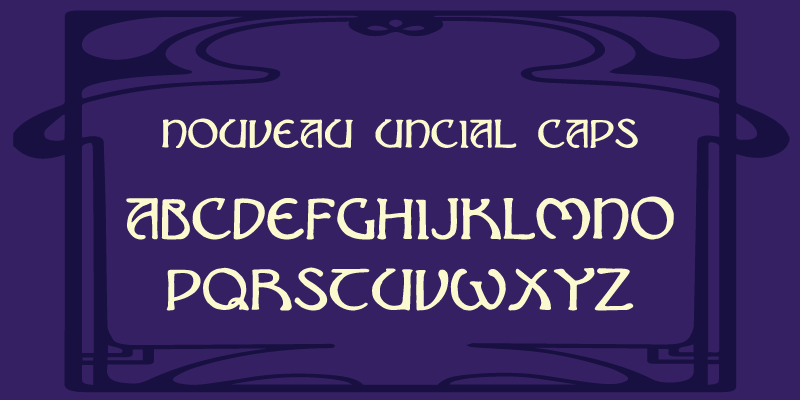
Preview and download Nouveau Uncial Caps Font. Created by James Greenwood in Gothic Celtic styles with Free for personal use license.
Font name: | Nouveau Uncial Caps |
Categories | Gothic, Celtic |
Author: | James Greenwood |
Note by James Greenwood | |
Here is an Art Nouveau take on the historic uncials, based on an old scan. Only available in majiscules (capitals). Suitable for display purposes. No punctuation is included. I included a TrueType and OpenType version. |